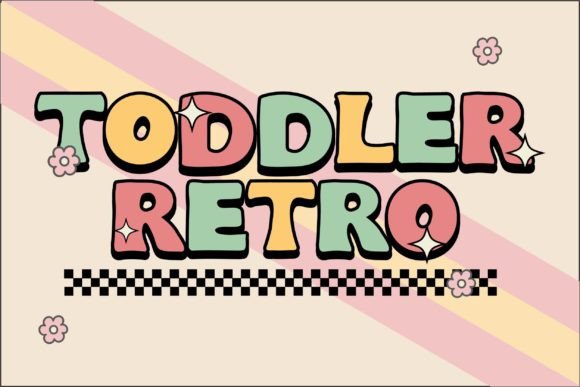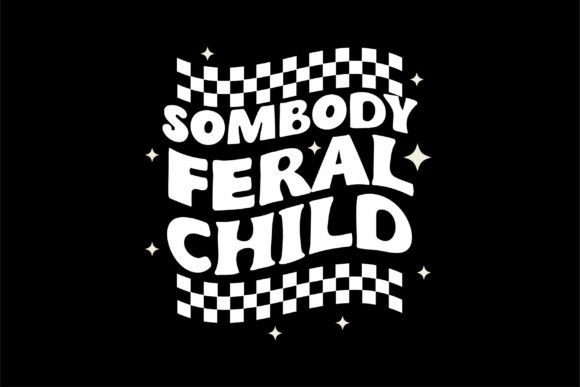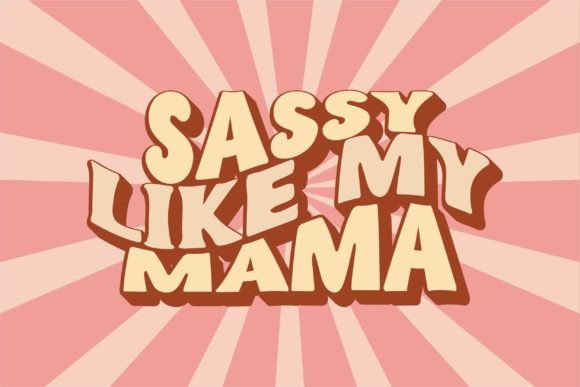
Toddler Retro Font Font
Toddler Retro is an incredibly cute, and assertive display font. Add it to each of your party invitations, gatherings, or pretty much any design that requires a touch of youth and joy.